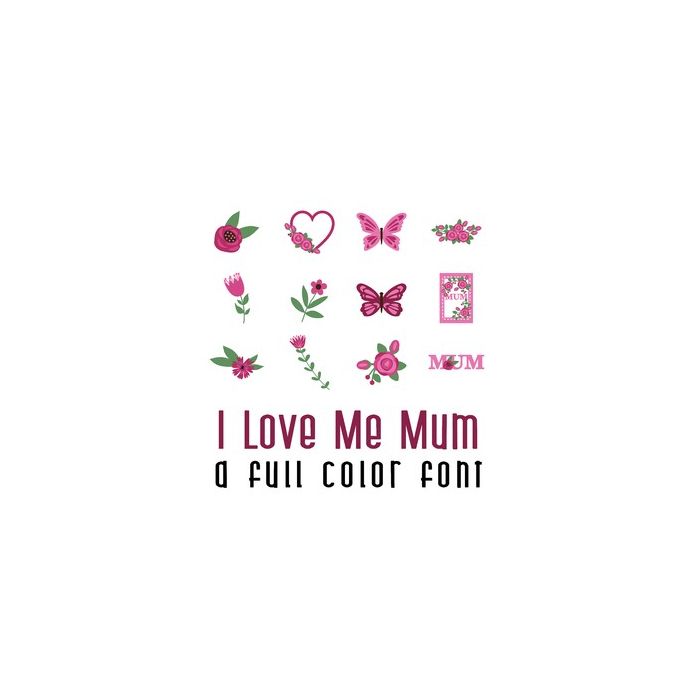
This adorable full-color doodlebat font features 26 beautiful and floral imagery perfect for Mother's Day. Perfect for cards, crafts, gifts, decor, scrapbook pages, planner stickers, and more!